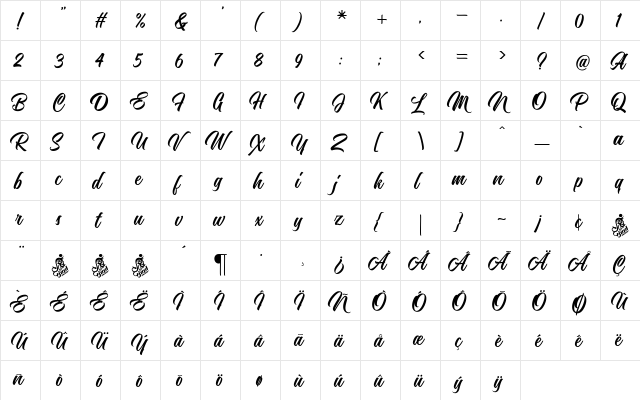
Nostalgic Script Regular
| Foundry | CoreLaText |
| Designer | Zulfikar MG |
Design Context for Nostalgic Script Typeface
Nostalgic Script brings a calligraphic fluidity to the page — its connecting strokes and expressive curves give it an unmistakably human quality.
Font Pairing: Combine Nostalgic Script with a simple geometric sans for maximum contrast — the tension between flowing curves and clean structure is a classic typographic pairing.
Pro Tip: Pair Nostalgic Script with a clean sans-serif for supporting text. The contrast between fluid script and geometric structure creates an elegant typographic hierarchy.